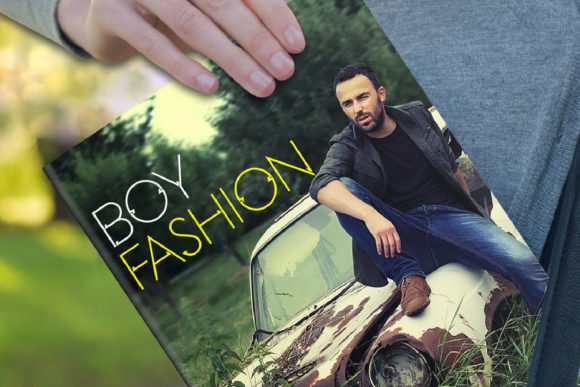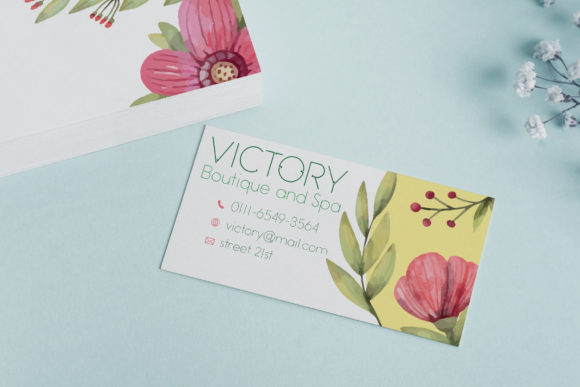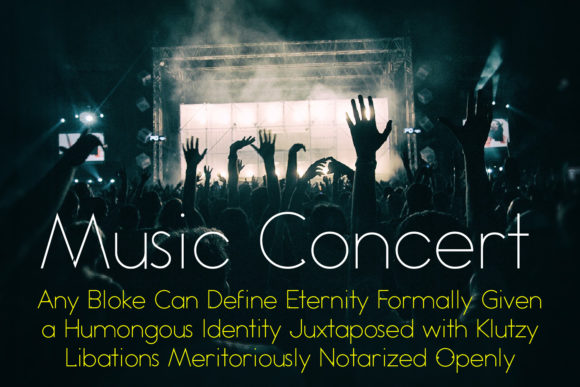
Introduction to Rooti Font
Rooti is Modern and elegant sans serif font with a light feel.
While incredibly modern, it is also the perfect font to add a retro touch to any design idea .
Key Features of Rooti Font
Why Choose Rooti Font?